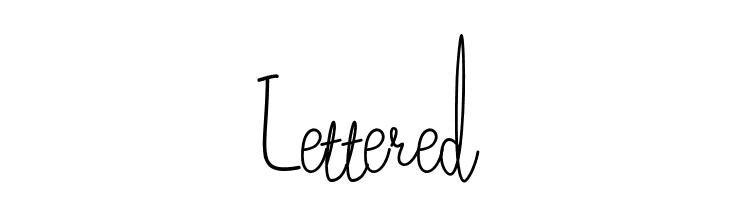
A dynamic handwritten font with fluid strokes and expressive letterforms.
A playful, handwritten font with tall, thin strokes and a casual style.
A playful, casual handwritten font with loose, flowing strokes.
A playful, handwritten font with a casual and dynamic style.